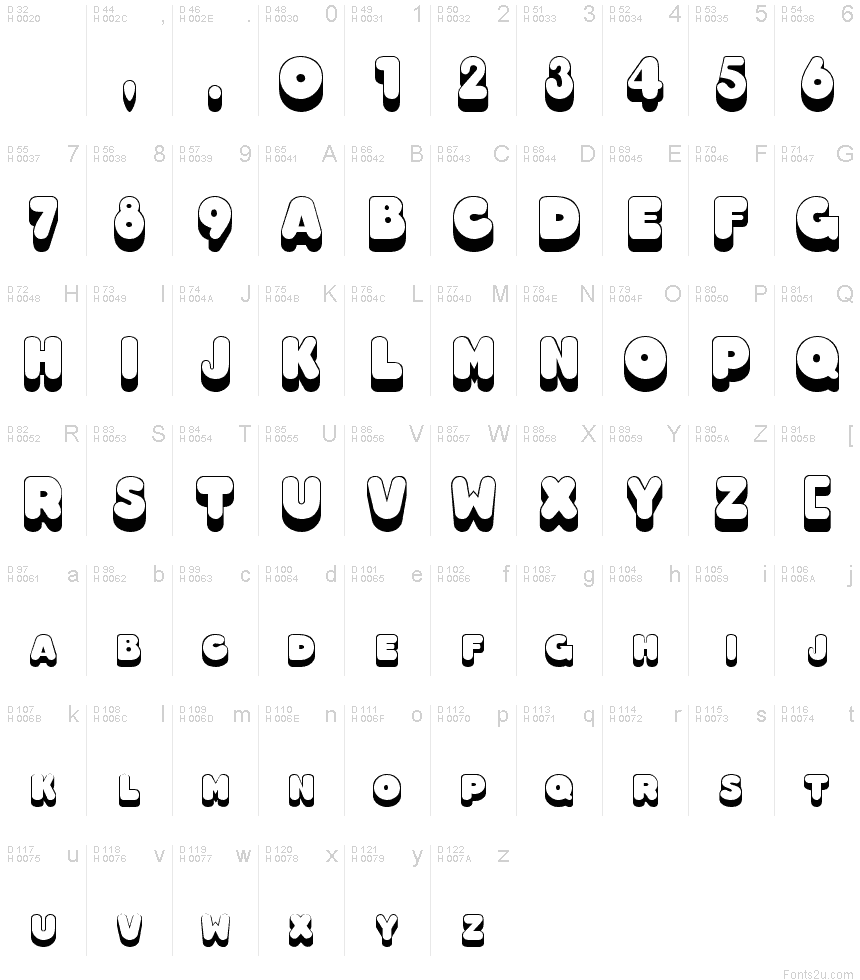
HotDog
HotDog font by Gerard E. Bernor is a free 3D display typeface that looks like it was piped straight from a cartoon snack bar. Chunky white tops sit on inky black bases, creating a soft, pillowy depth that feels almost squishy to the touch. The rounded shapes and bold weight make every word look like a logo, so even short titles feel loud, friendly, and impossible to miss.
Using HotDog, you can bring playful impact to food packaging, kids’ event posters, party invitations, arcade or carnival graphics, retro branding, and bold social posts. This free font shines at large sizes where its bubbly shading can really pop. Pair it with a simple geometric sans for body text, and let HotDog handle the juicy headlines and wordmarks.